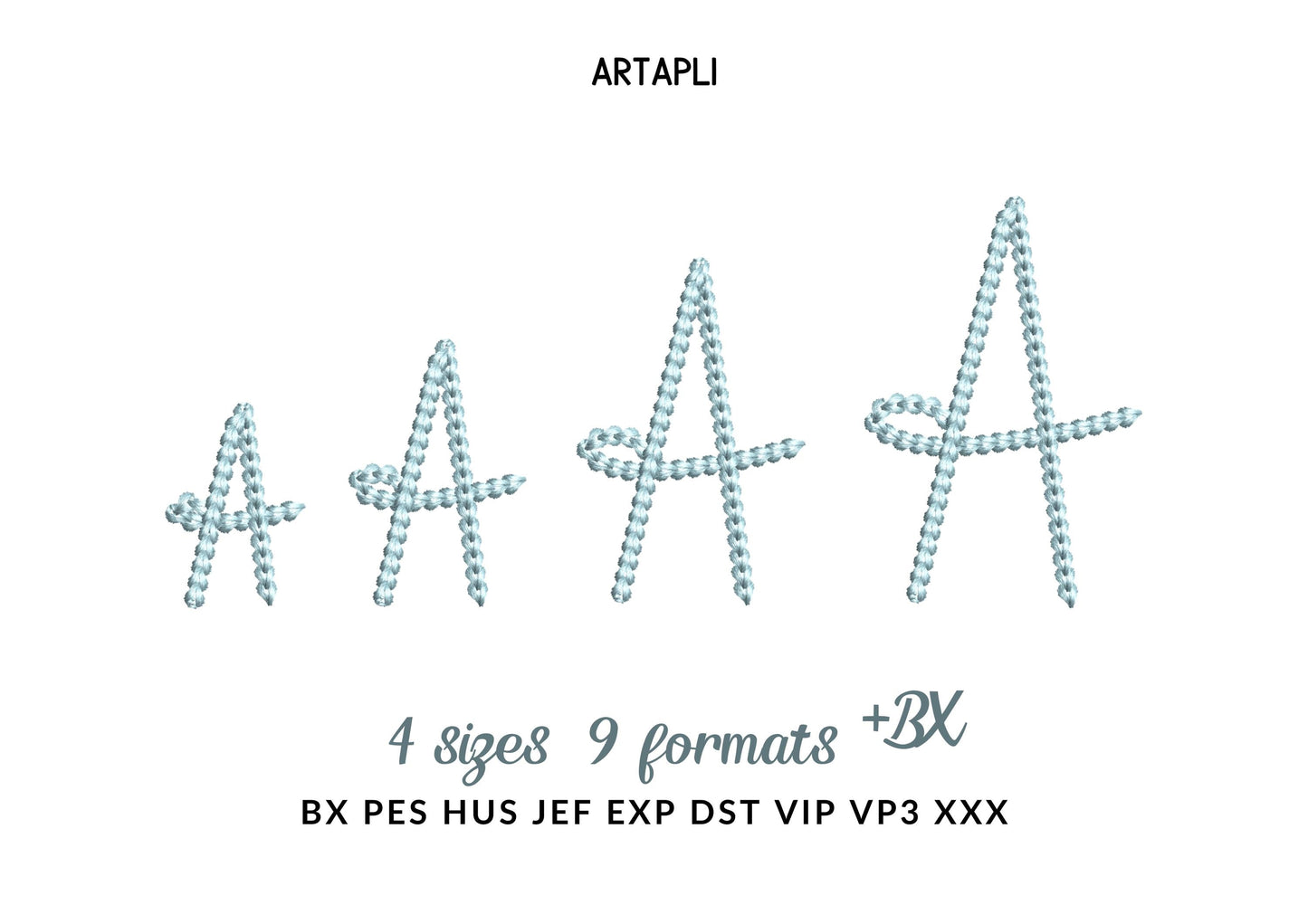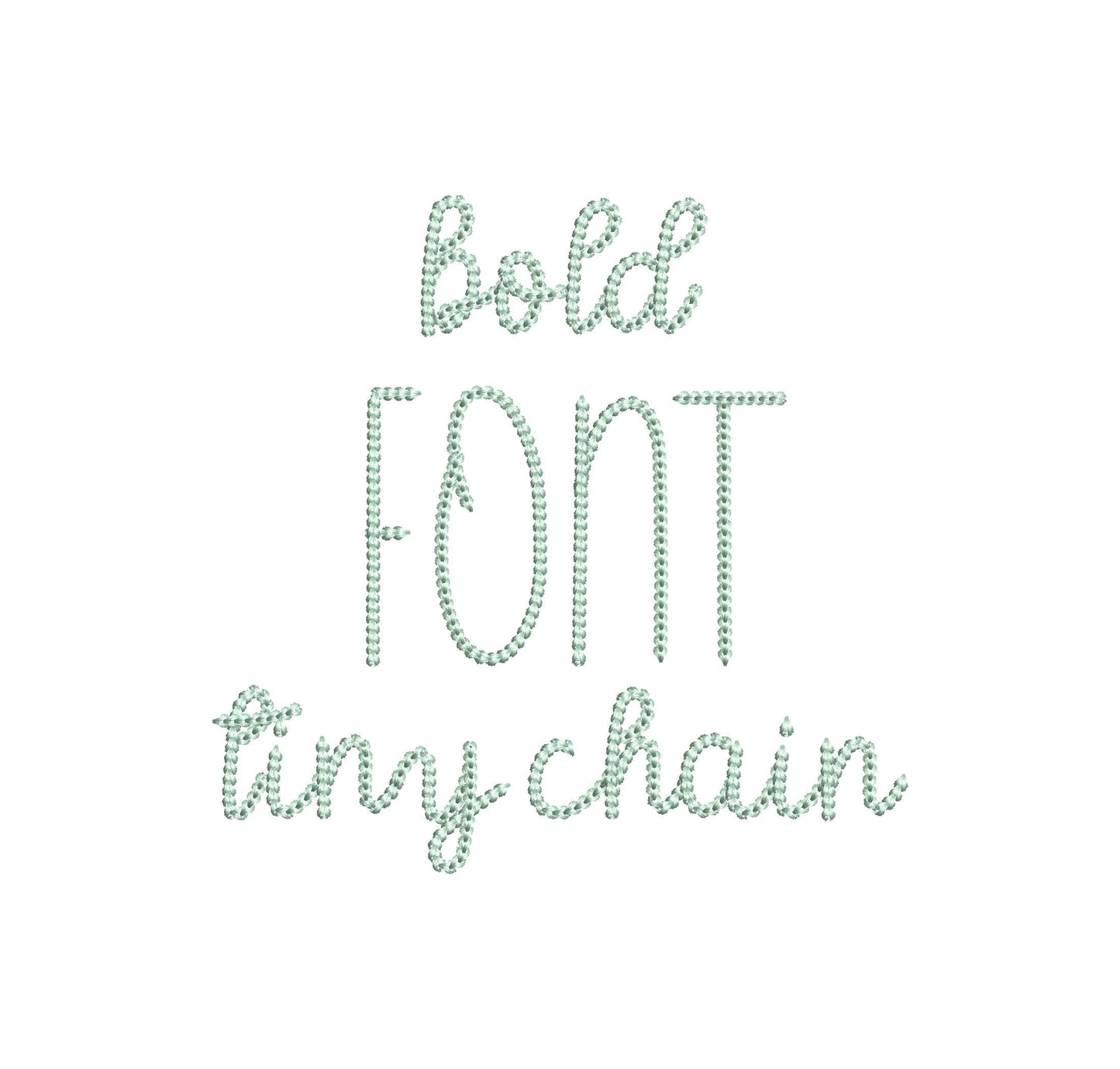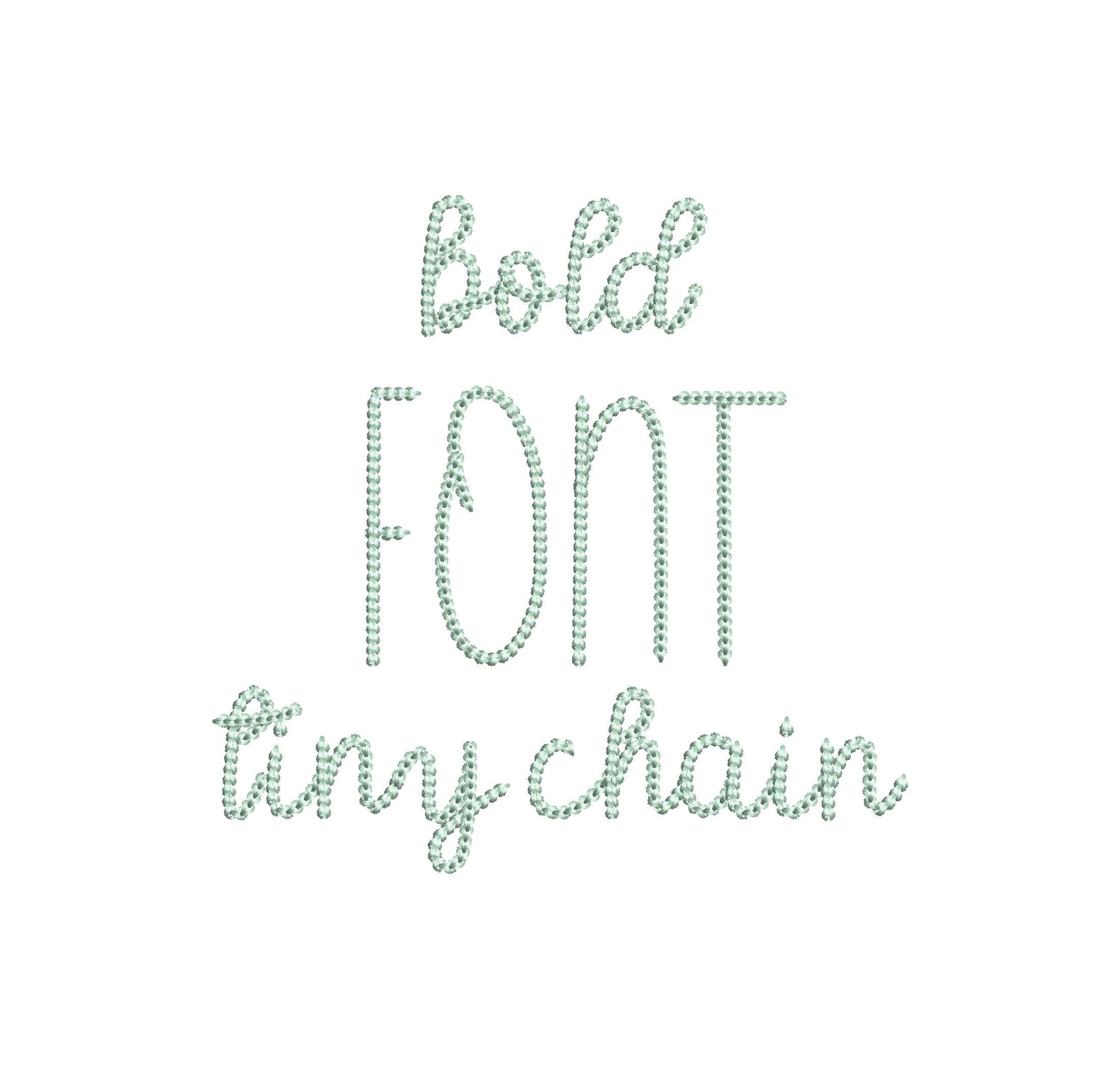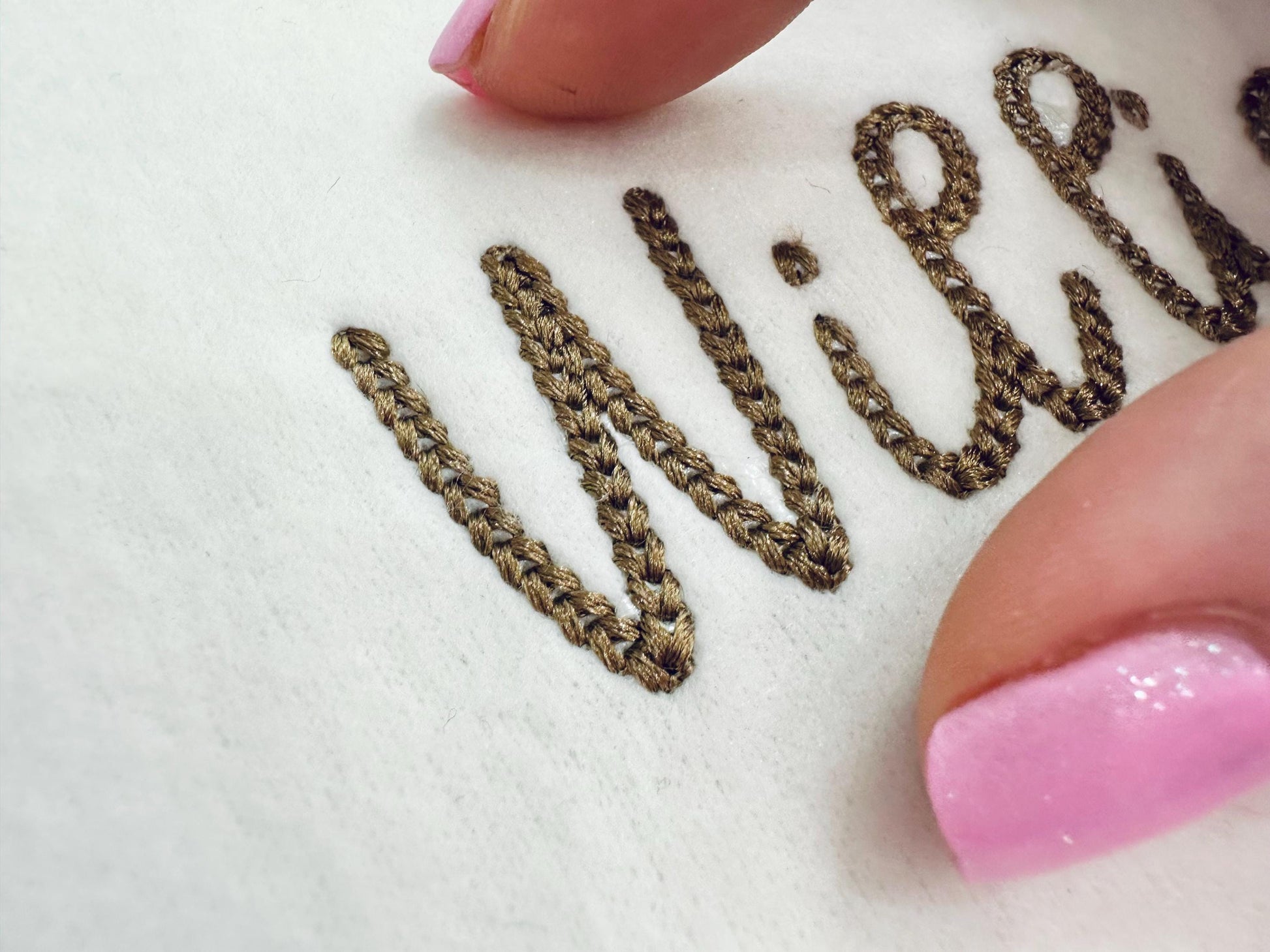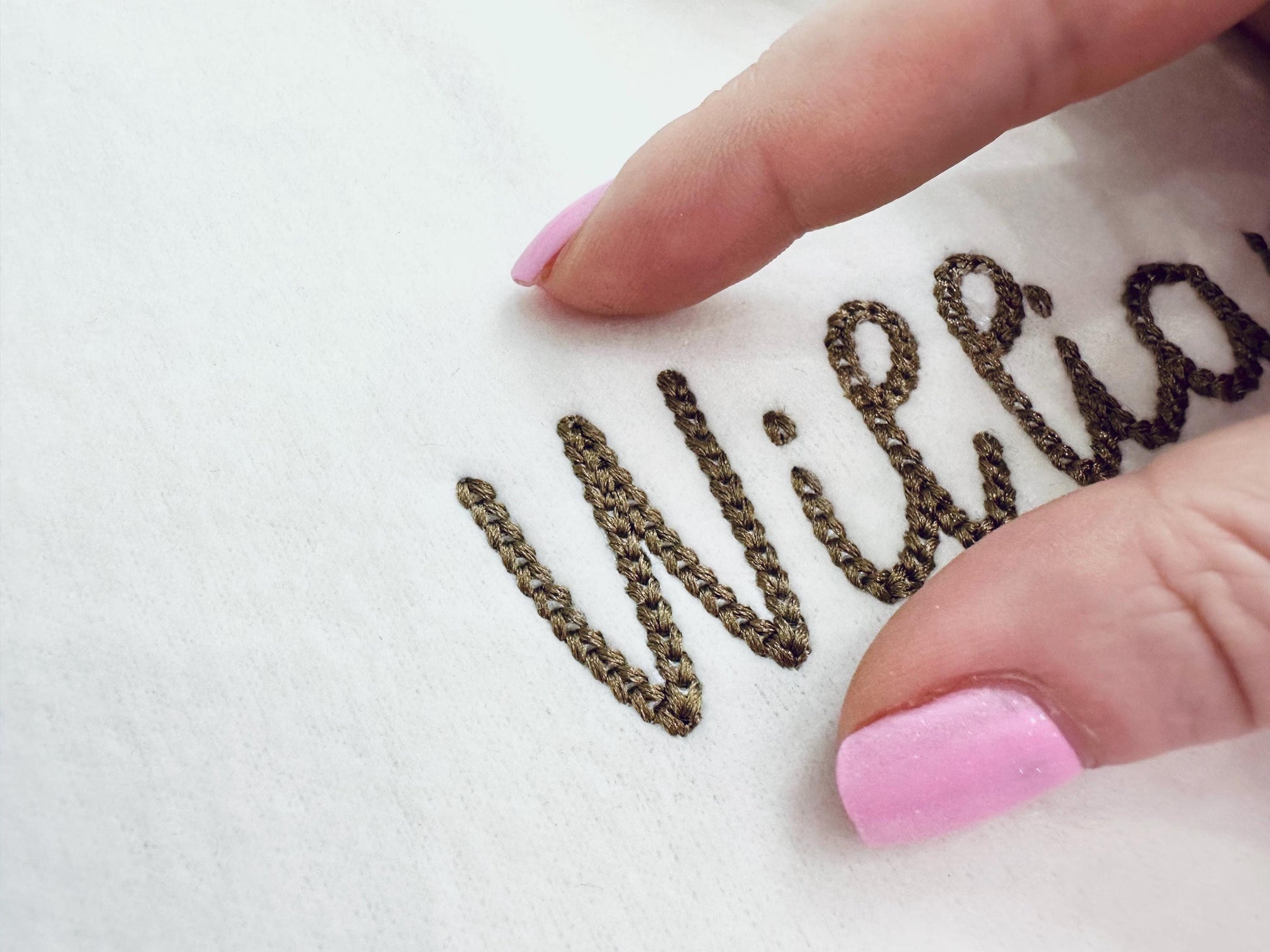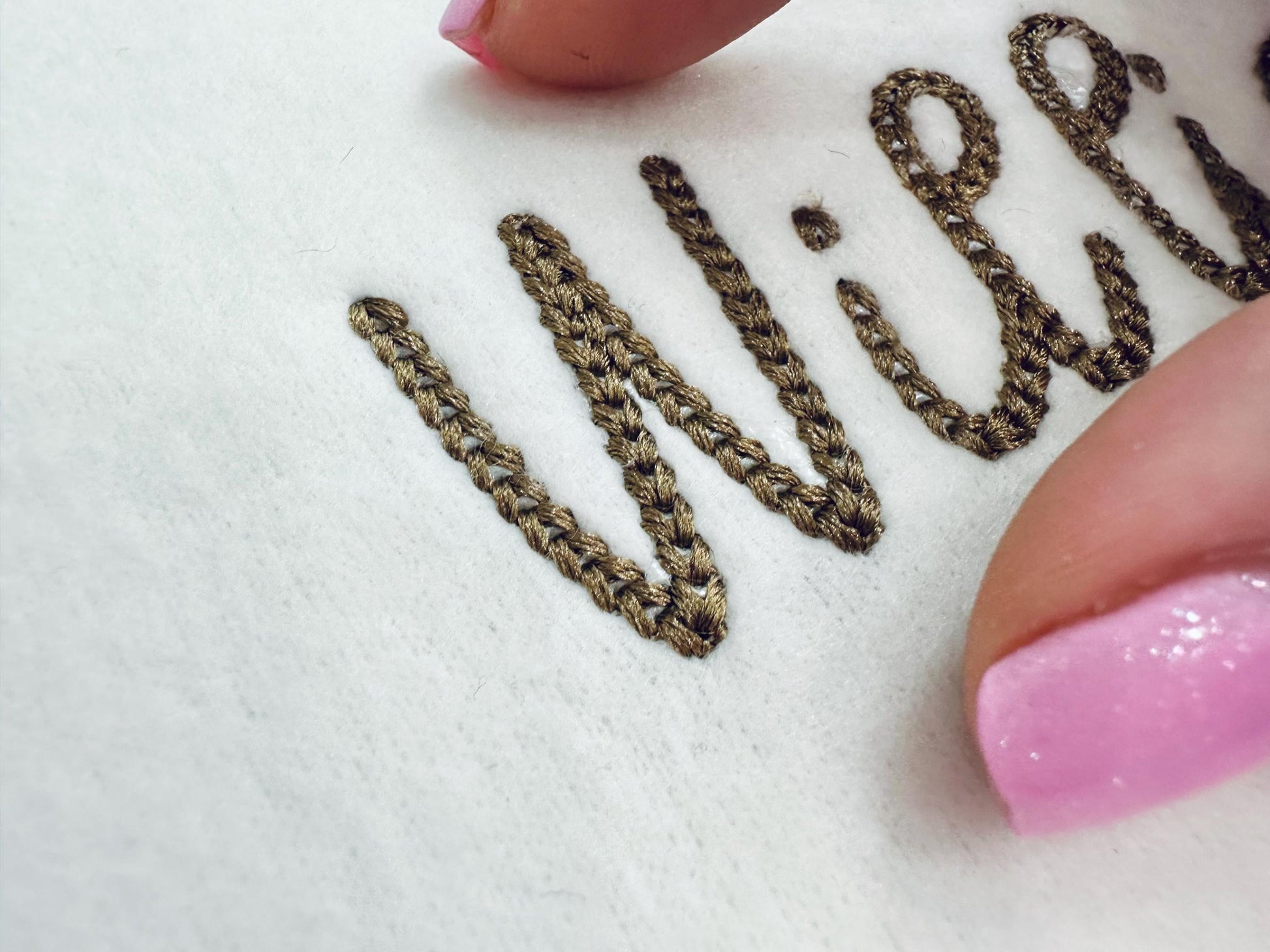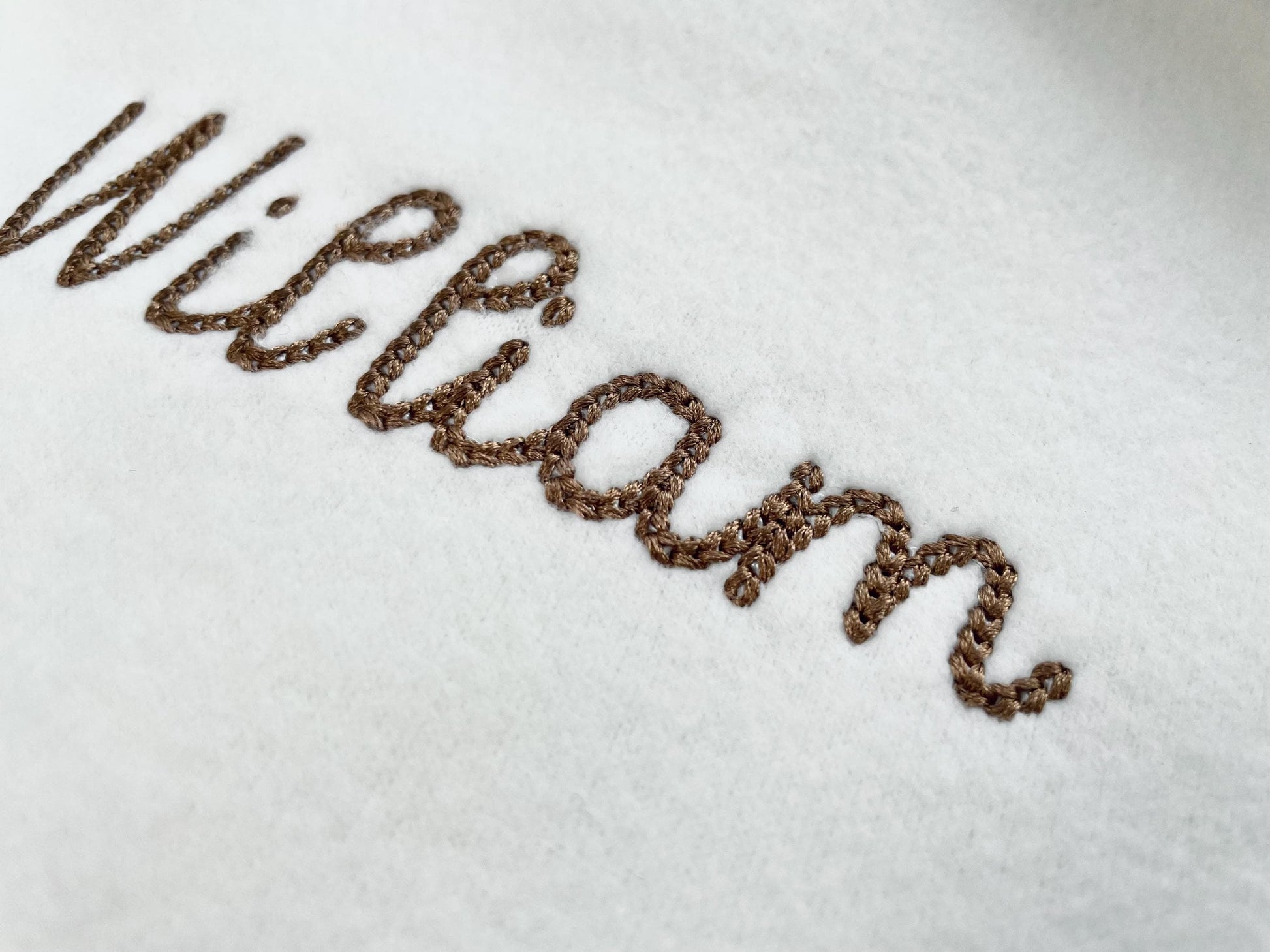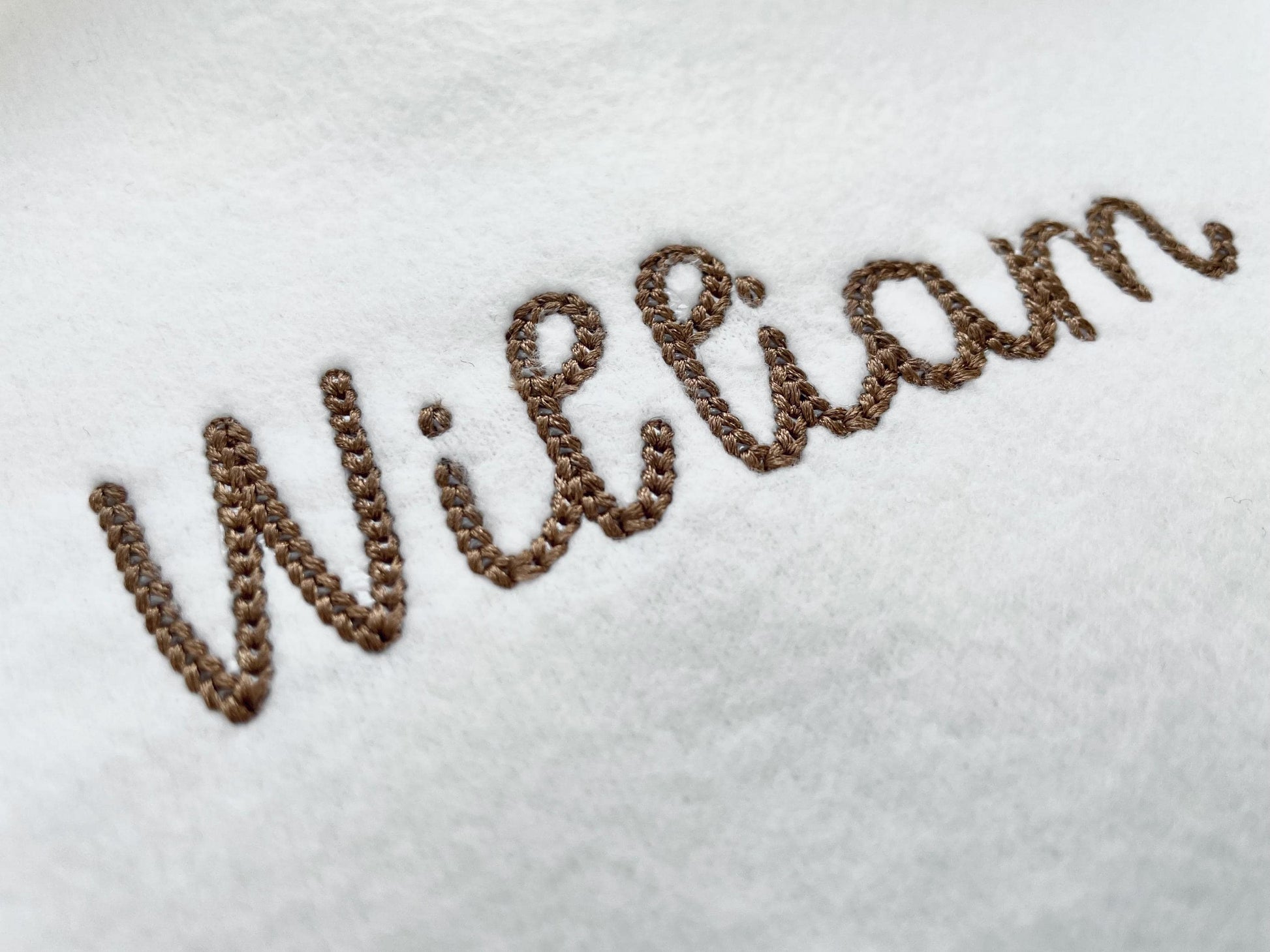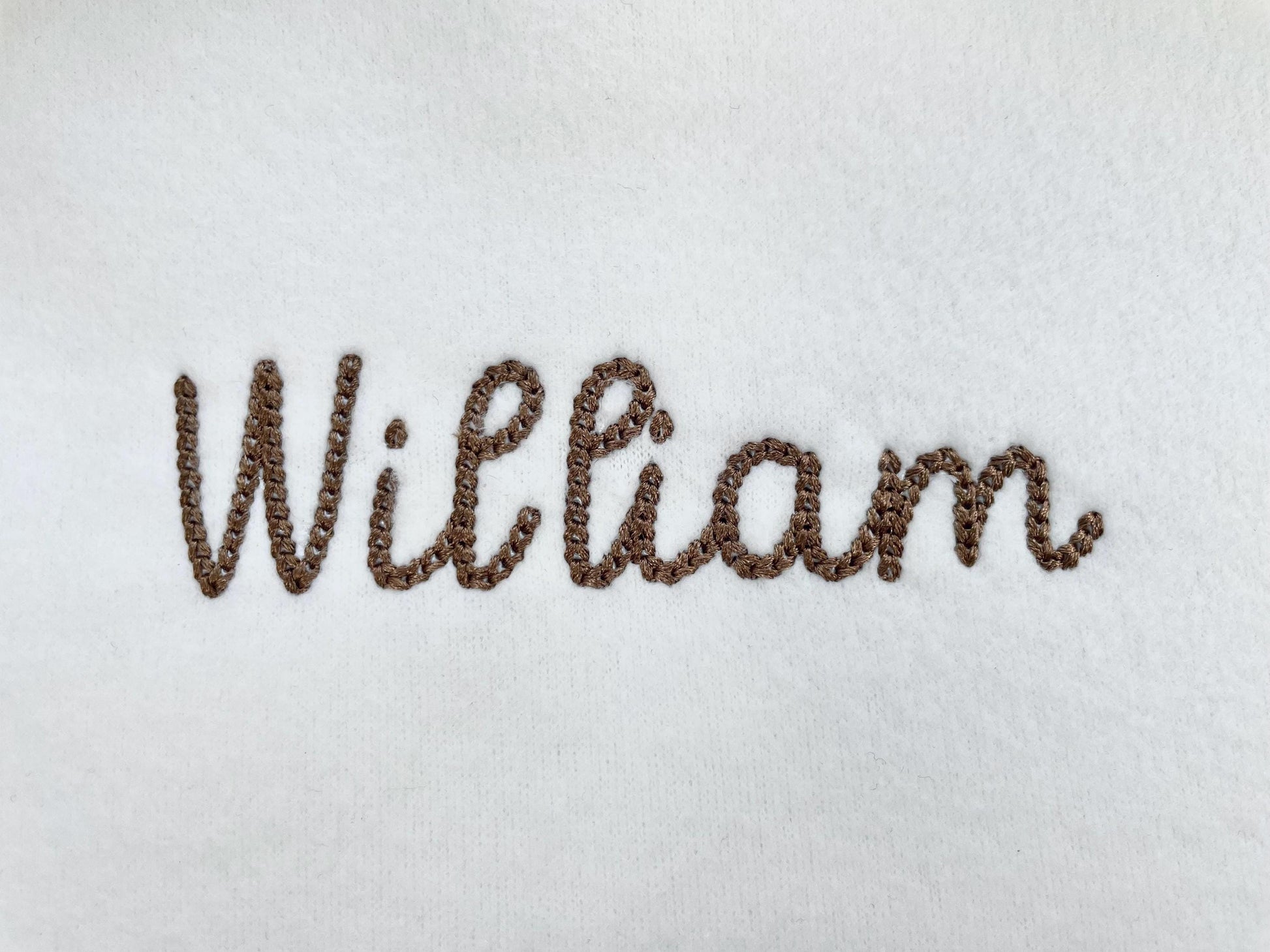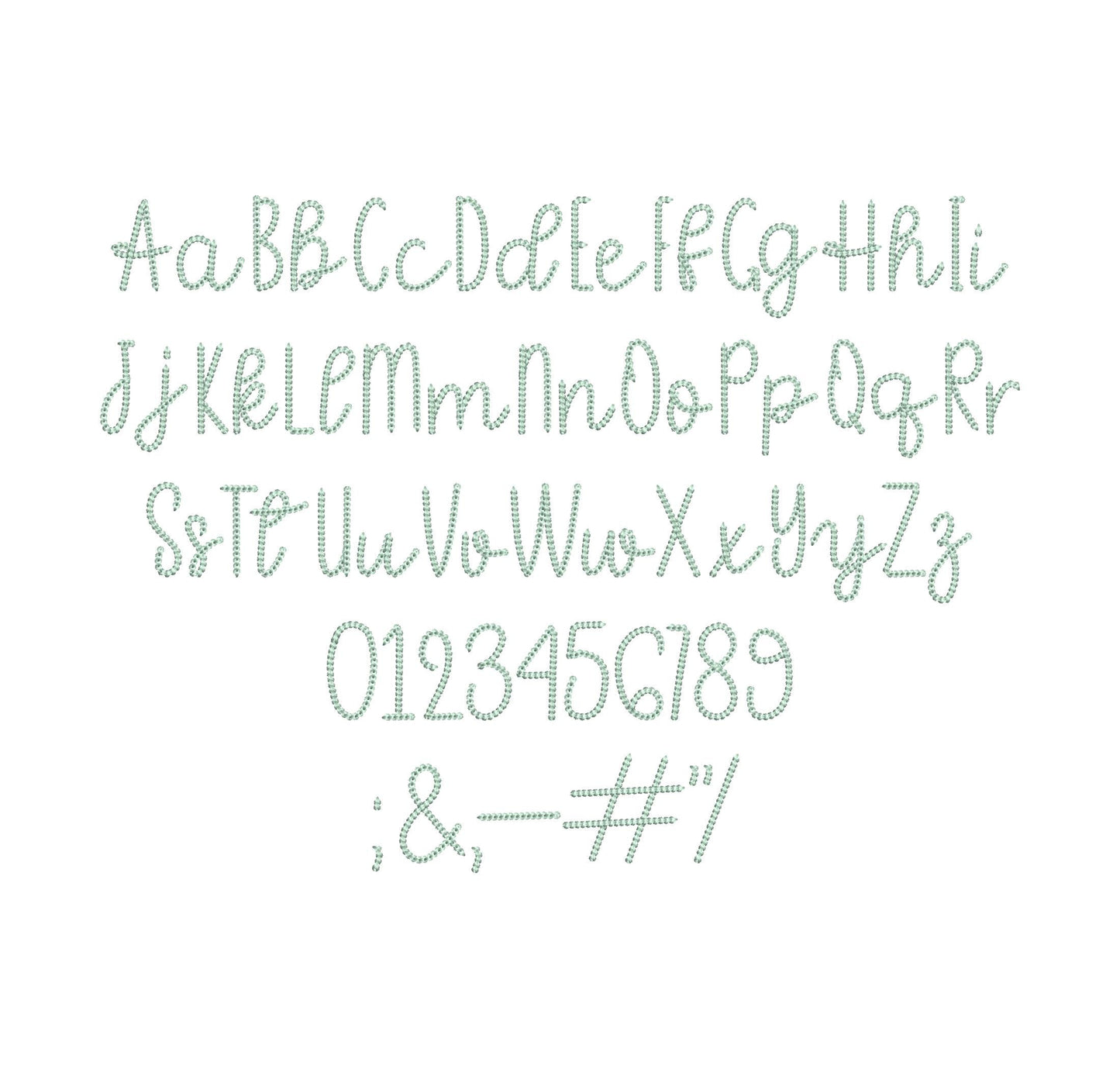
Or click to open the linkA tiny, extra bold chain stitch script. Sweet for kids' and baby names, small sayings and labels.
Uppercase and lowercase letters, numbers 0 to 9 and punctuation, in four mini sizes: 1.1, 1.5, 1.9 and 2.3 inches.